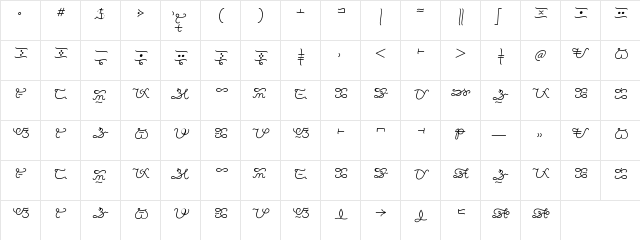
Maalong Tagalog 2 Linear Regular
Design Context for Maalong Tagalog 2 Linear Typeface
Maalong Tagalog 2 Linear takes a measured approach to typography — its balanced proportions and neutral character make it a reliable workhorse for both digital and print work.